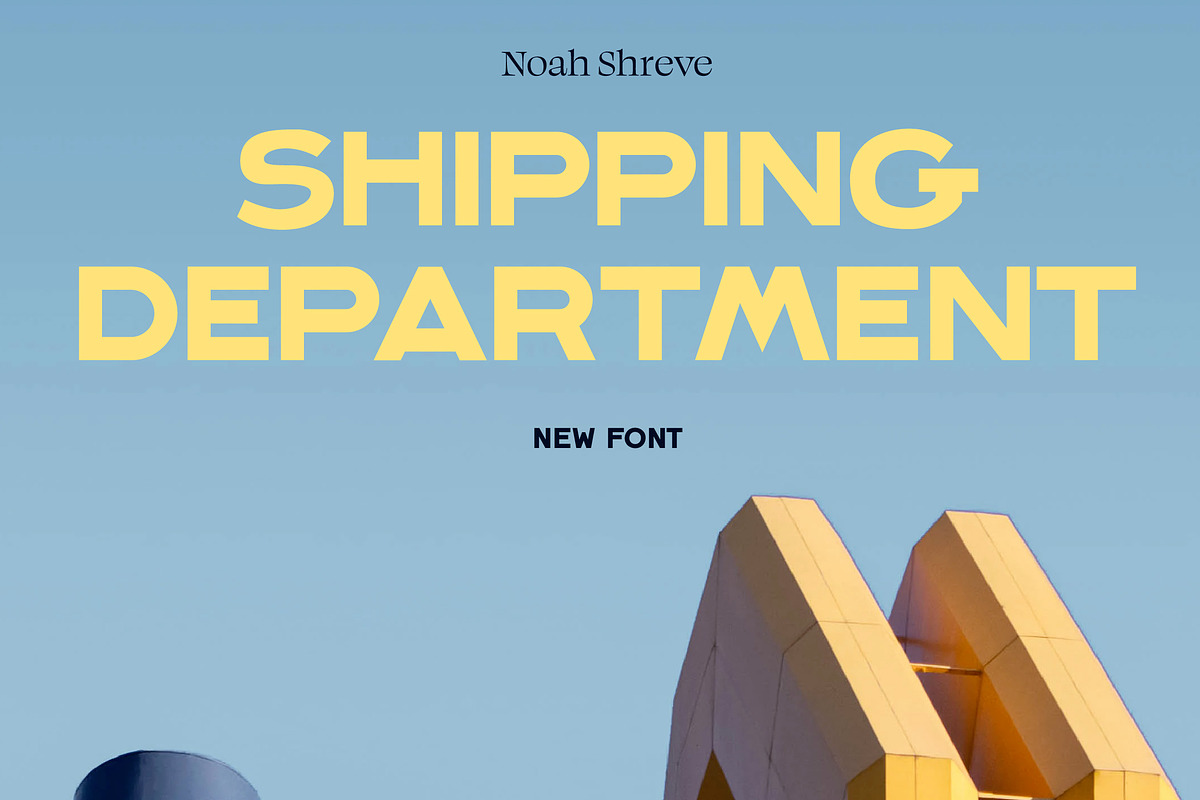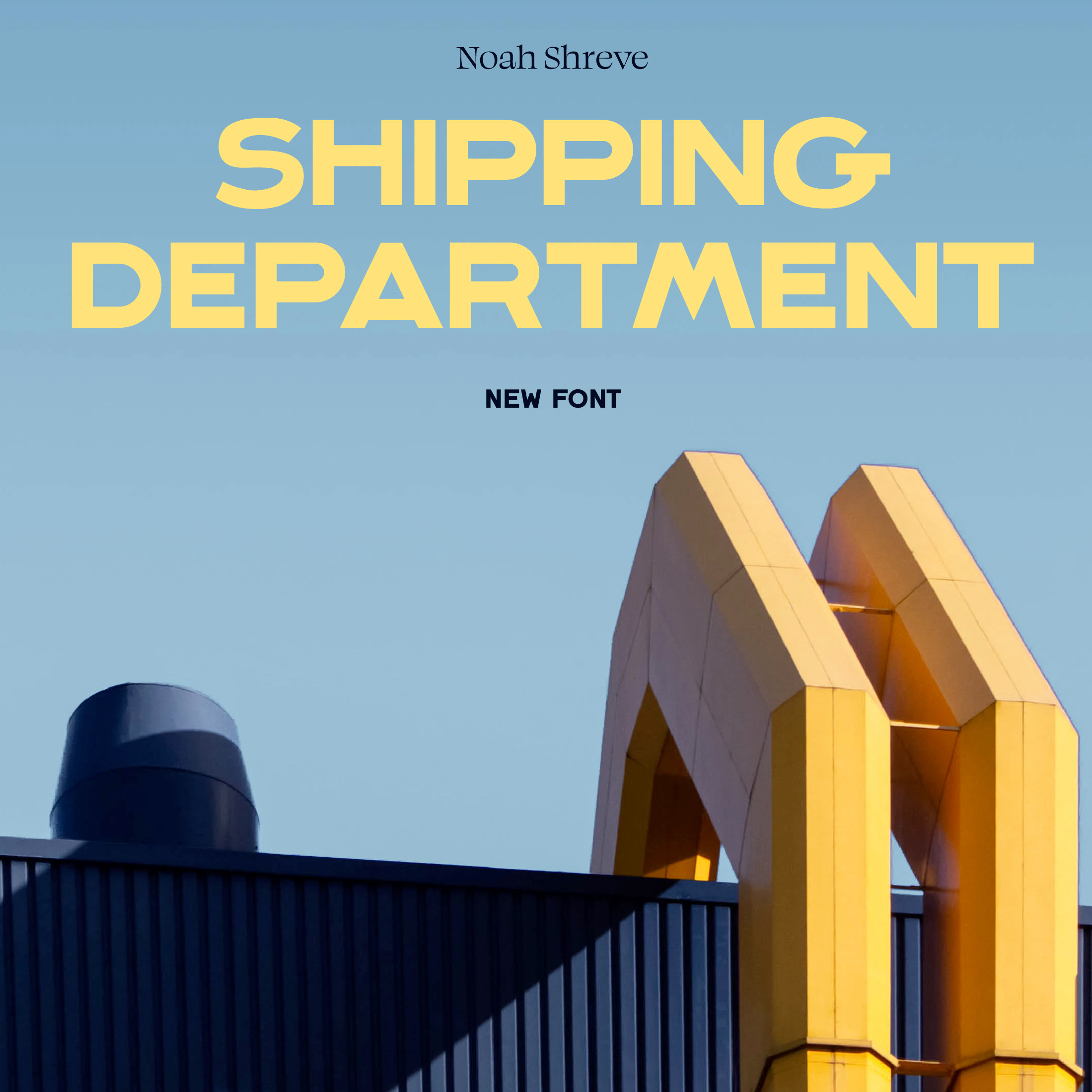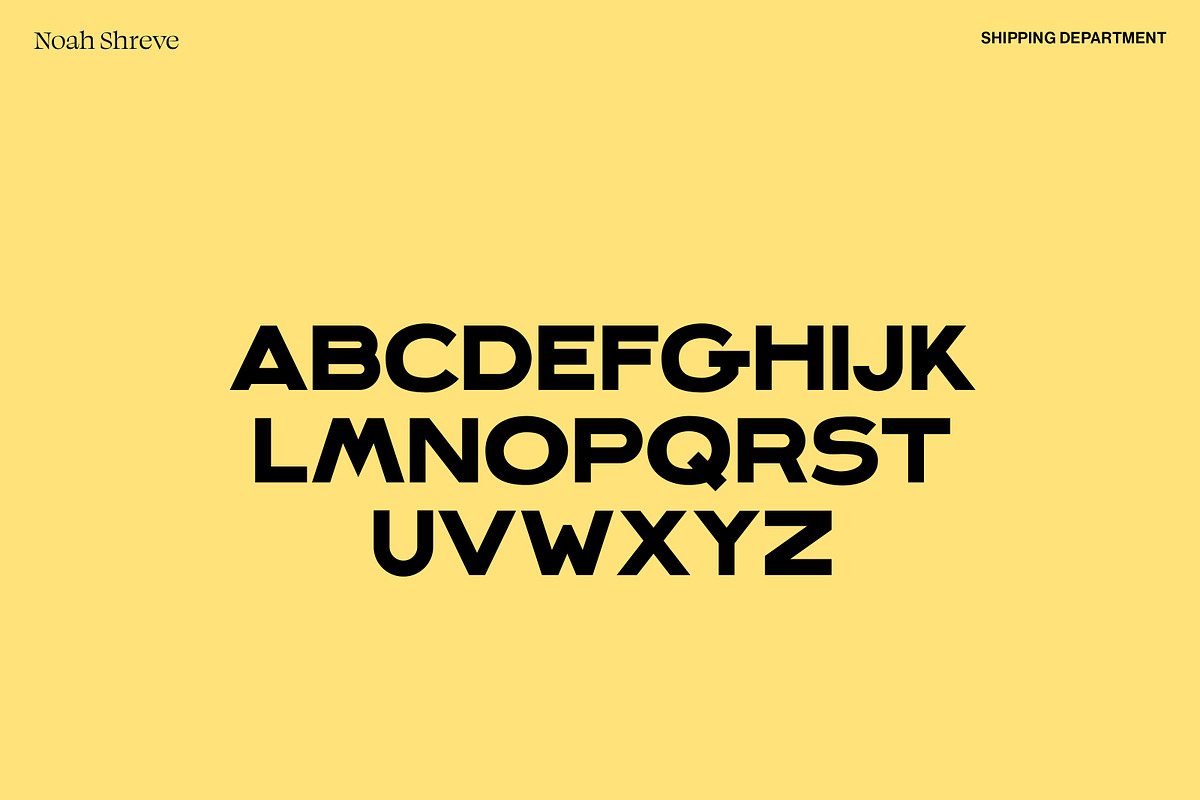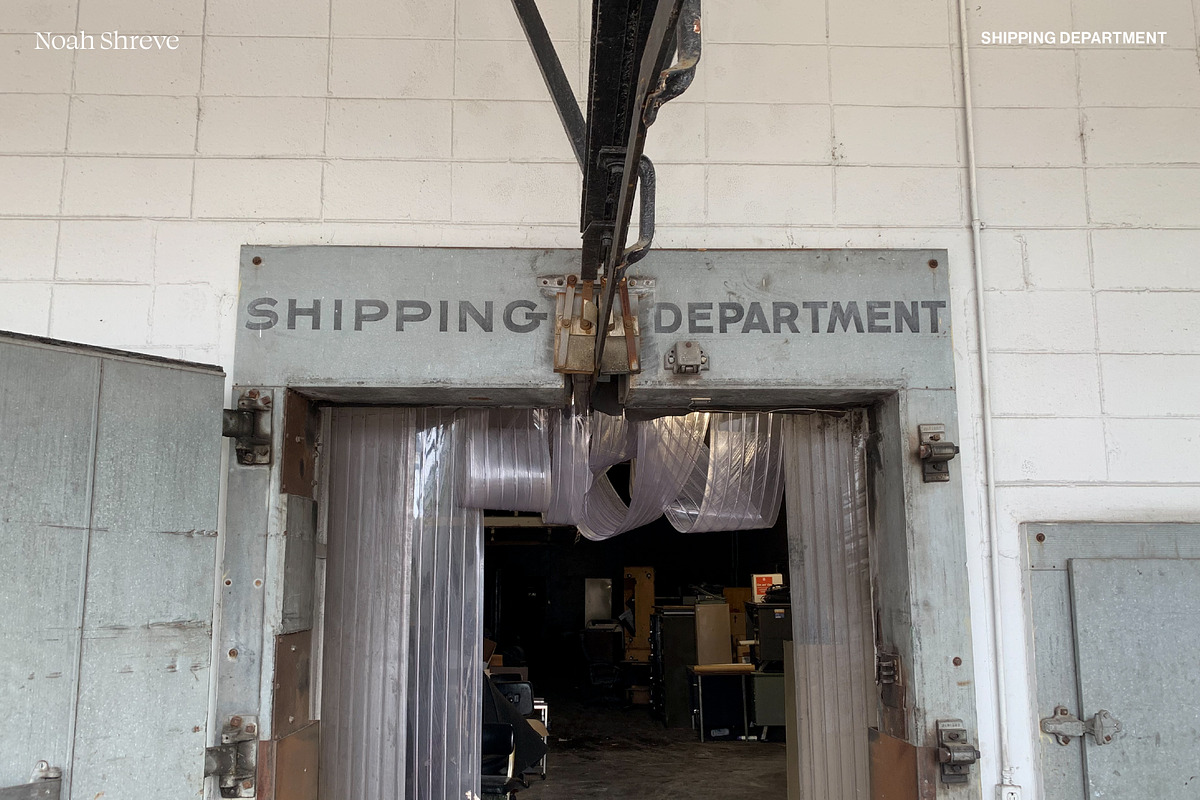
Shipping Department Extended Font
My grandpa used to own a meat distribution company. Before he sold the building, our family decided to visit one more time and I saw this wicked handpainted sign over one of the giant doors there. I thought I would make a font out of it.